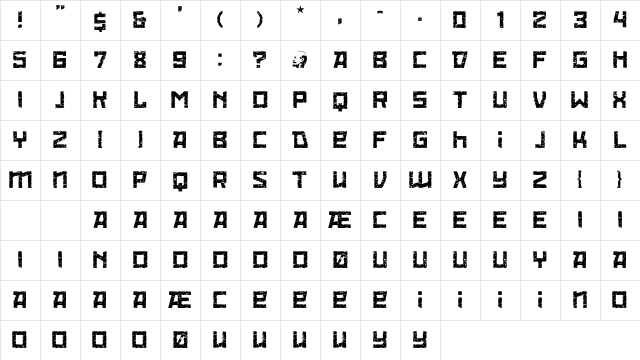
Red October Eroded Regular
Complete Red October Eroded Regular glyph index. Displaying only characters natively supported by Red October Eroded Regular font.
Design Context for Red October Eroded
Red October Eroded embraces imperfection - its rough, textured character adds raw authenticity to designs that want to feel lived-in and unconventional.
Pro Tip: Use Red October Eroded at larger sizes where the texture and irregularity of each letterform can be clearly seen - it loses its character at small sizes.